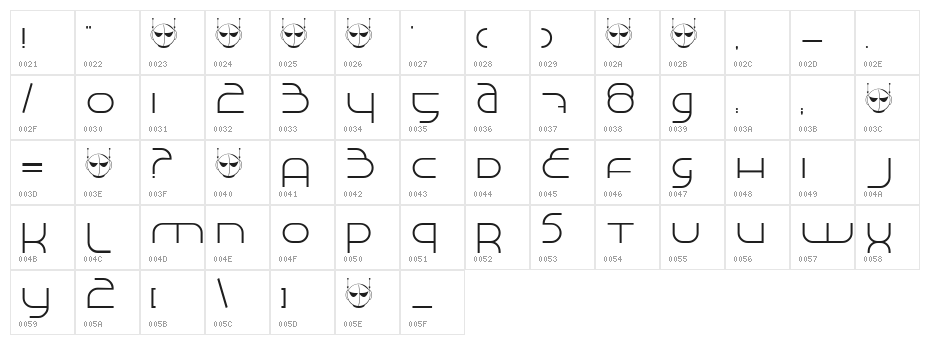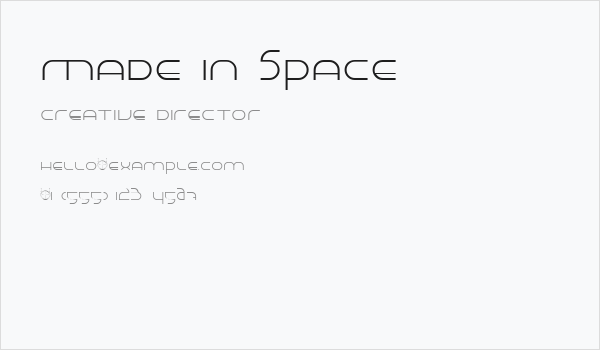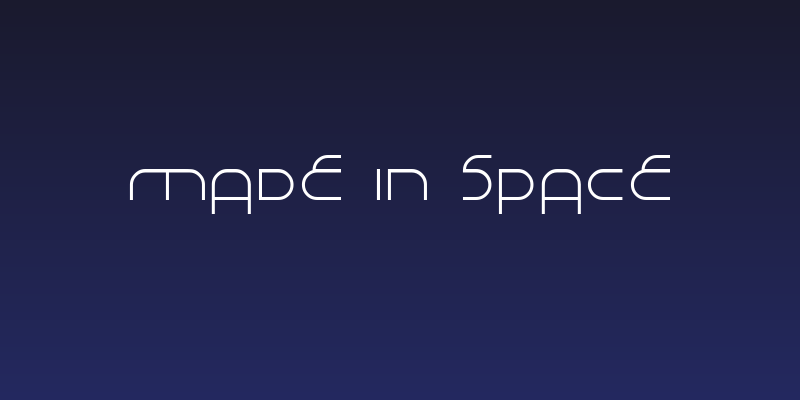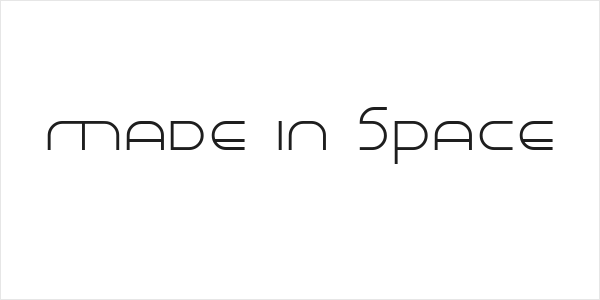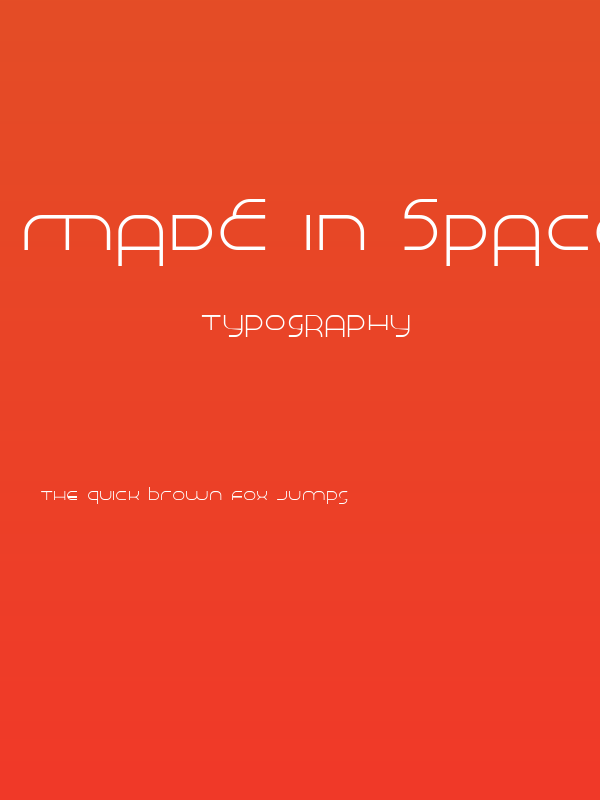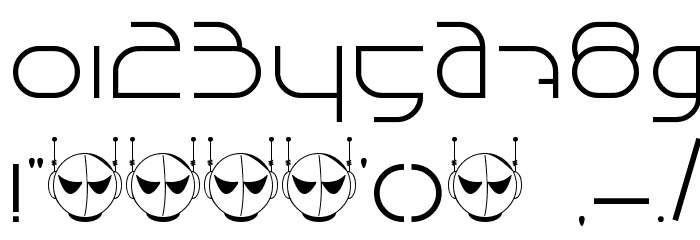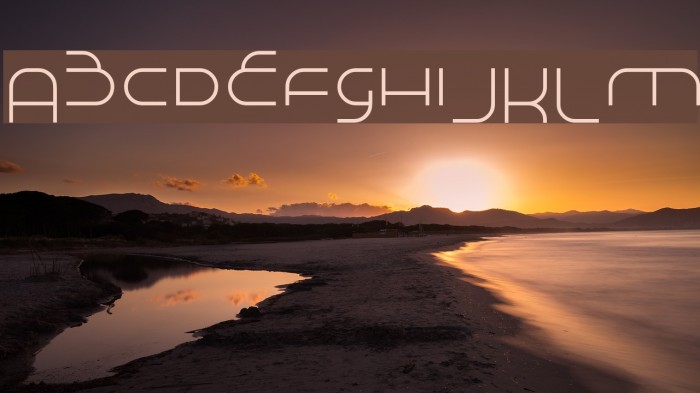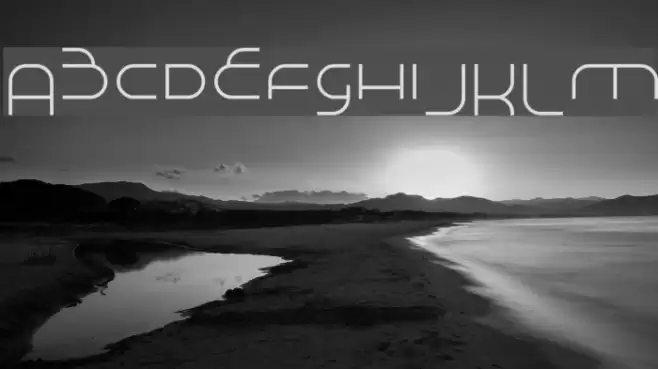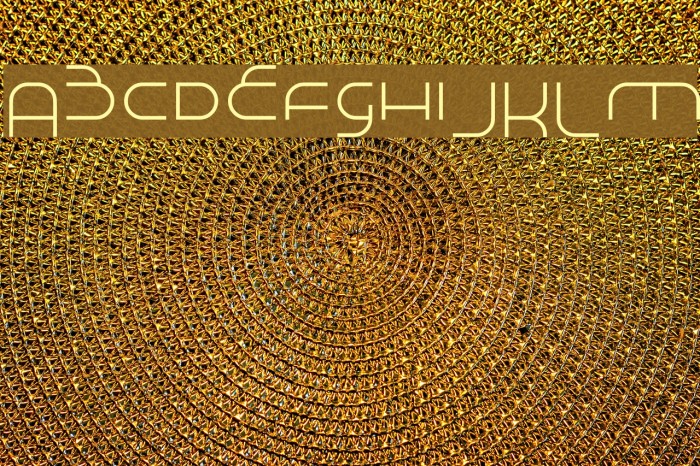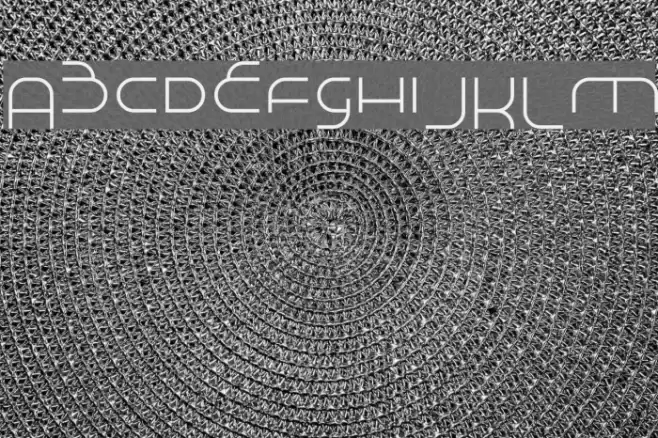
Made in Space Font
Made in Space Description
This futuristic font features a sleek, minimalist design with a distinct space-age aesthetic. The characters are composed of smooth, continuous lines that create a sense of fluidity and motion. Uppercase and lowercase letters share a similar structure, enhancing the uniformity and modern appeal. The font includes unique, stylized numerals and special characters, adding to its distinctive look. Its geometric shapes and rounded edges give it a clean and sophisticated appearance, making it ideal for projects that require a contemporary and innovative touch.
| Use Case | Logos, Headlines, Digital interfaces |
| Proposed Projects | Ideal for sci-fi themed projects, technology branding, modern logos, and digital interfaces. |